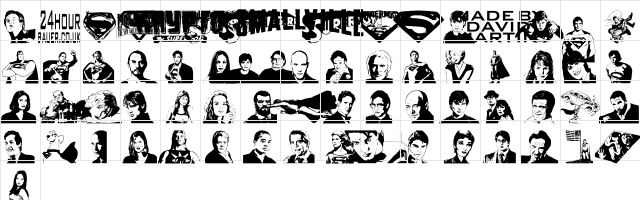
Superman Last son of Krypton Super
Design Context for Superman Last son of Krypton Typeface
Superman Last son of Krypton is a composed and adaptable typeface that performs quietly and consistently across a wide range of design contexts.